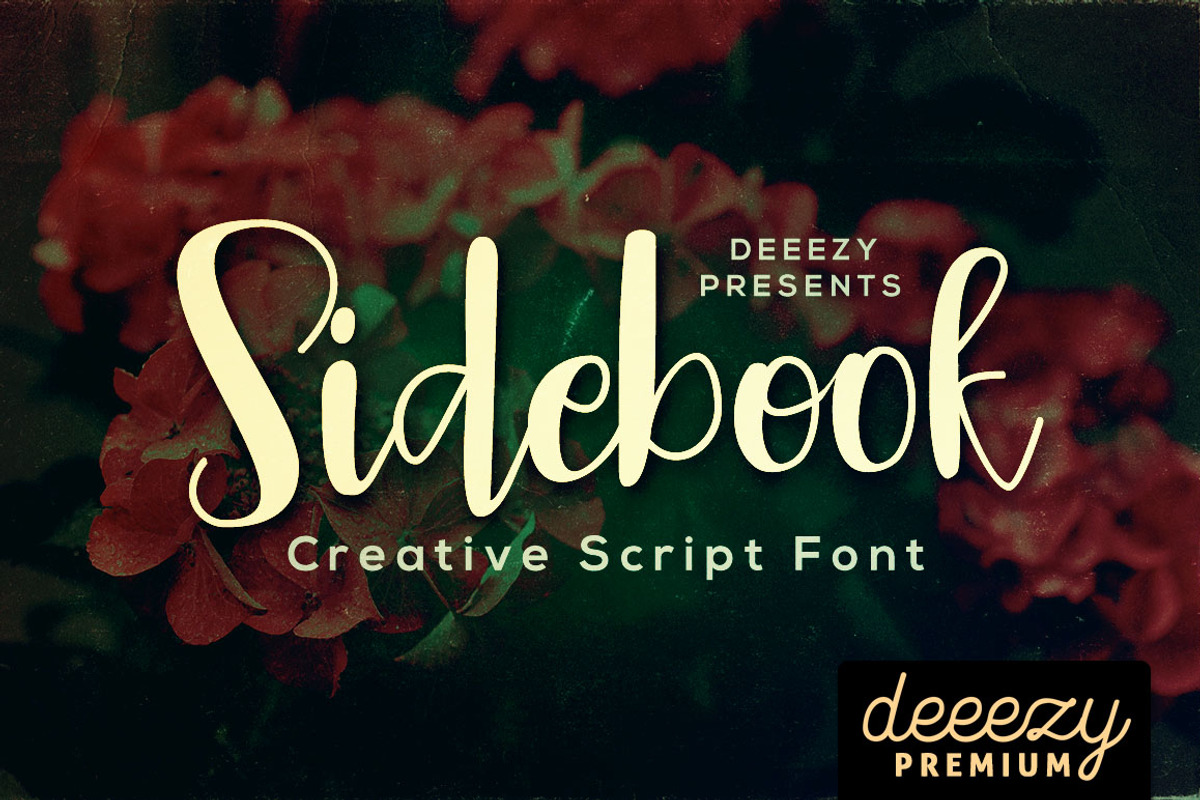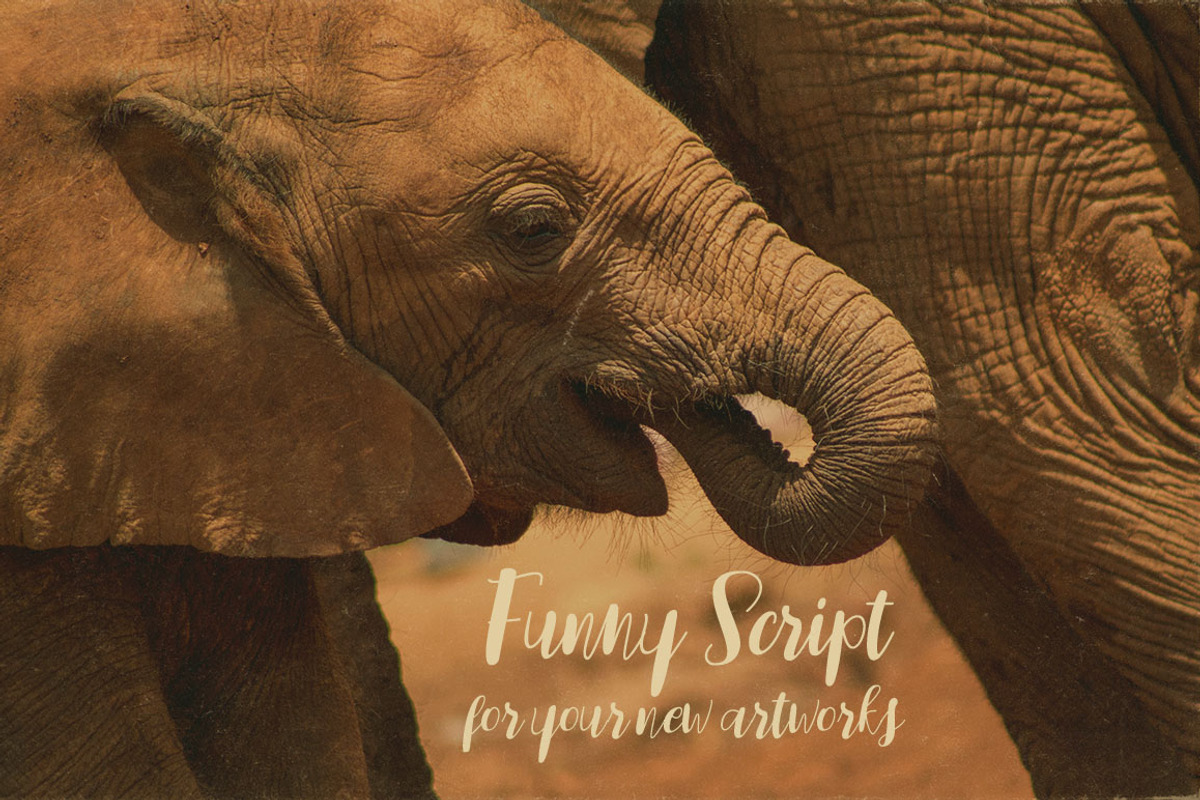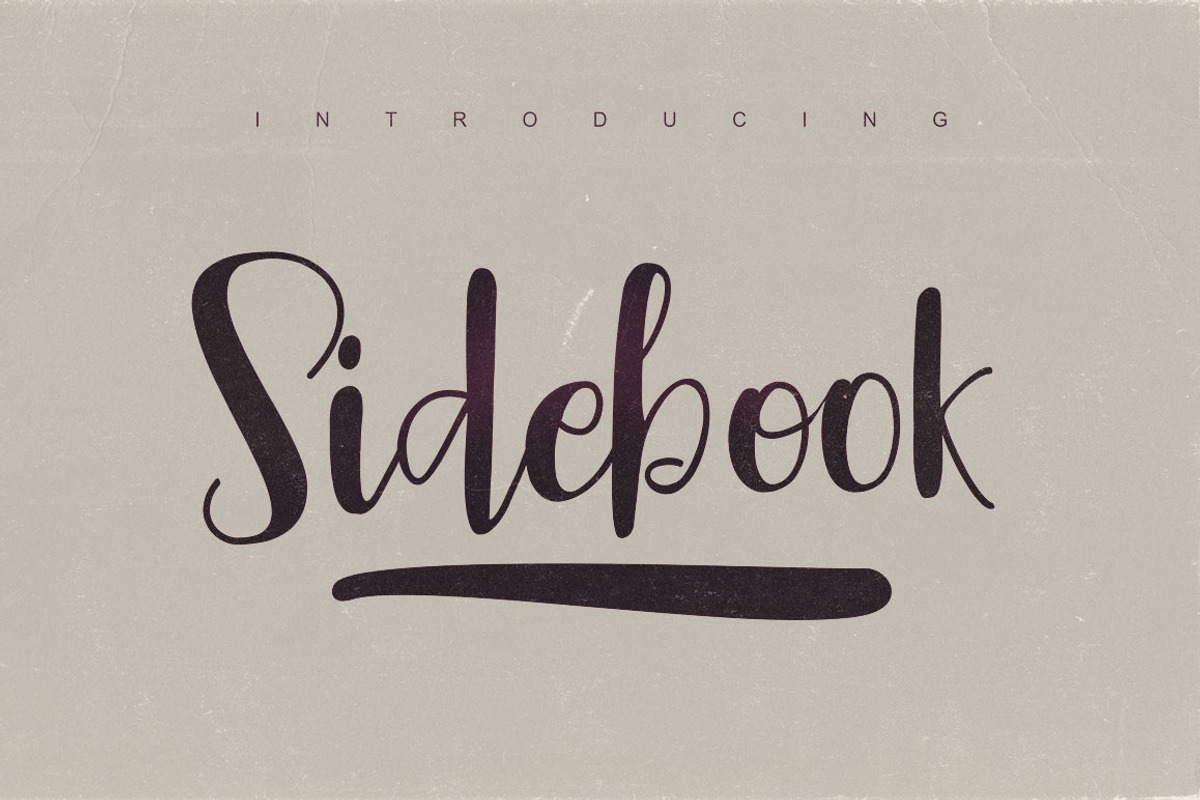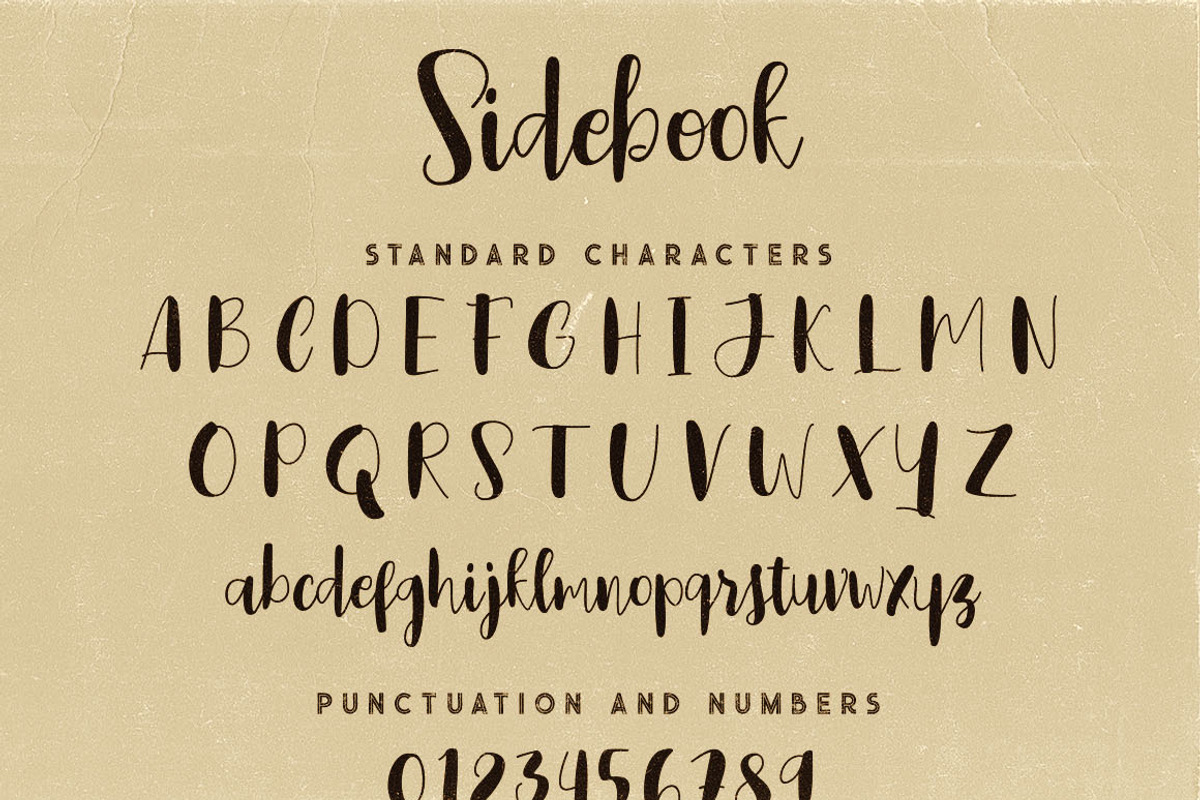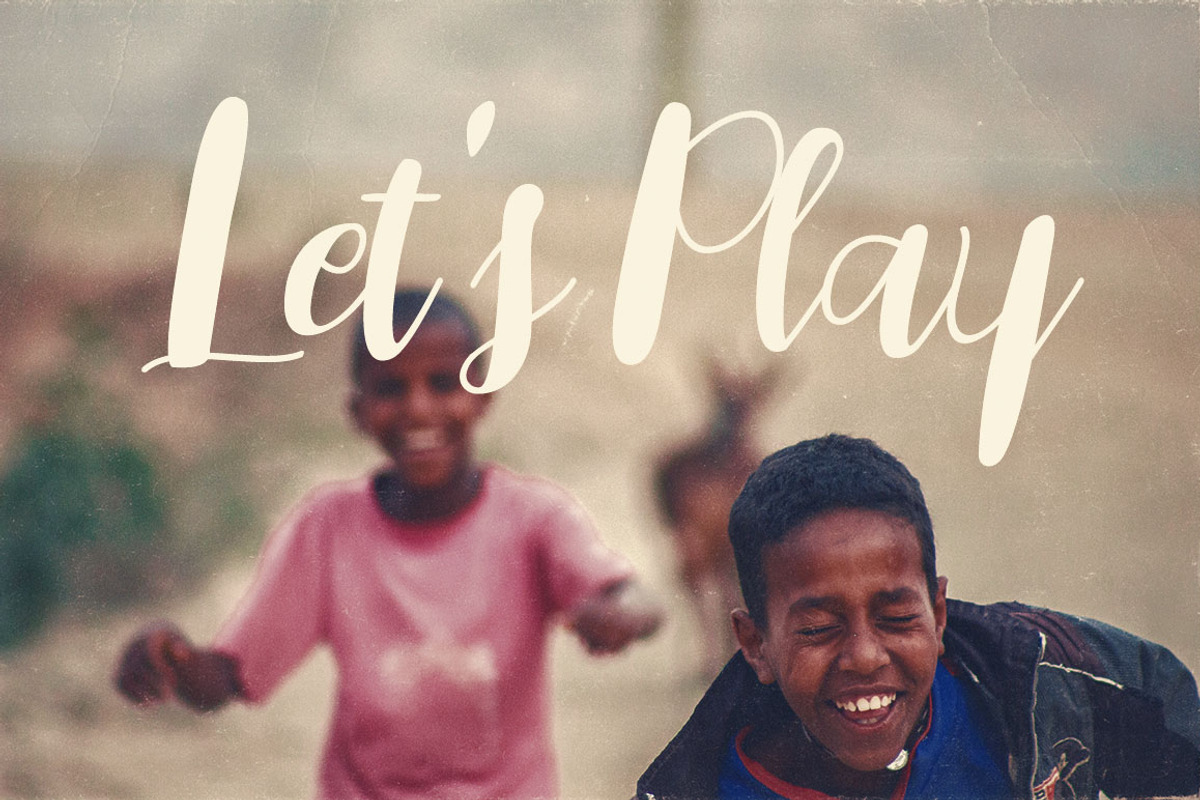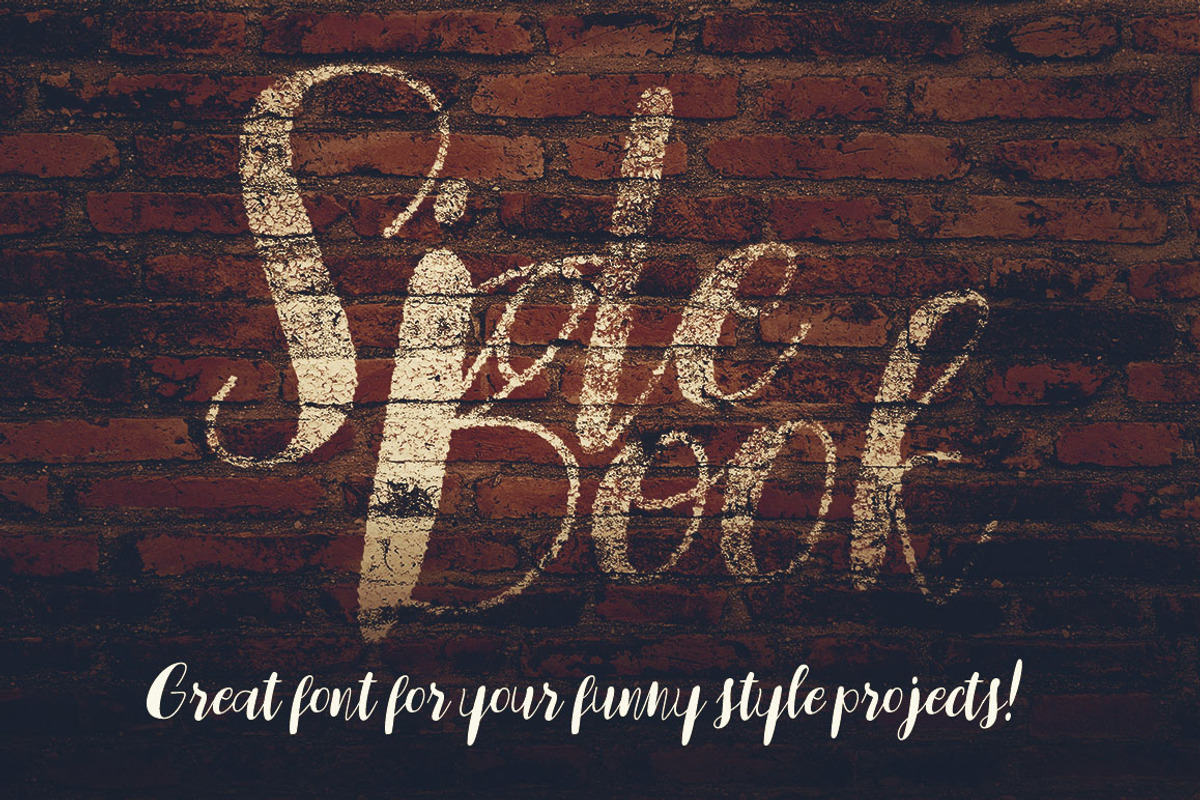
Sidebook Script Font
Cool and funny style script font for your new projects. With multi language support and lot of stylistic alternates.
- With multi language support and lot of stylistic alternates.
Sidebook Script Font by Deeezy fits naturally into Branding, posters, packaging, typography.